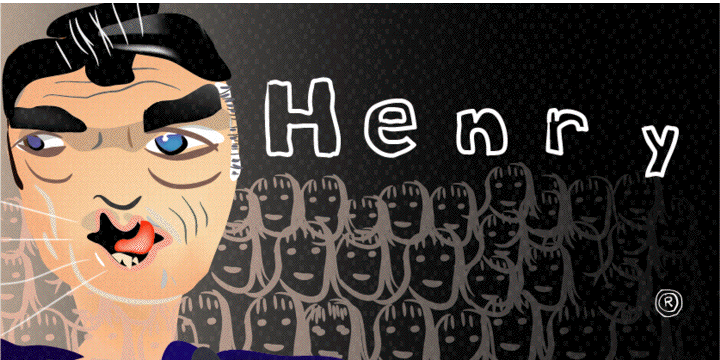
Created in 2007 by V.H. Fleisher, Henry has a handmade quality.
Henry Fill is designed to be used with Henry Regular in applications like Adobe Illustrator: copy text made with Henry, paste in back, then change the pasted text to Henry Fill; the two fonts together create an outline and fill (see gallery image).
Henry
Henry Fill